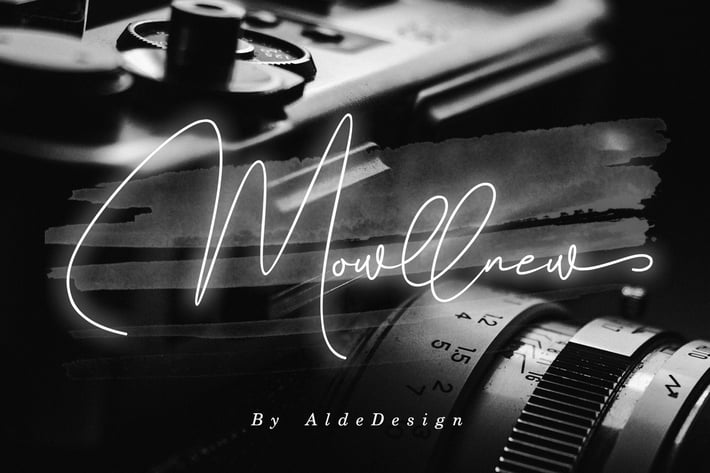
Mowllnew Signature Font
Mowllnew Signature Font is a great font for your any project!
This font made with awesome and classy taste, comes with natural touch, so much ligatures & alternates.
We keep this font looks classy, readable, elegant, stylish, catchy and absolutly easy to use.
Mowllnew Signature Font is the great choice for watermark on branding, design, wedding, photography, signature, logo design, album cover, business card, quotes, and many other design project.
Stylish handwritten style
Ligatures, Alternates, Swash (ending tail), and titling (beginning tail)